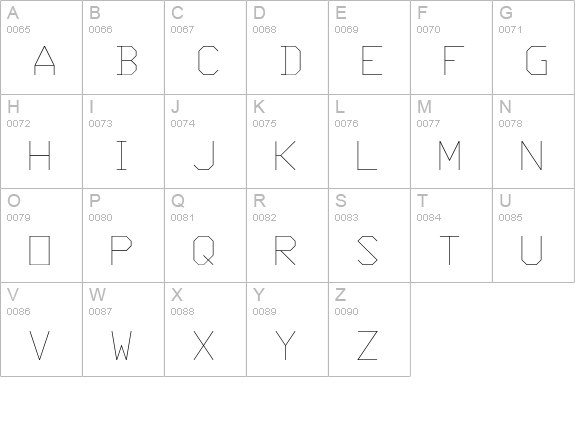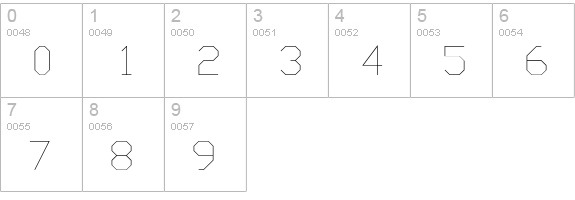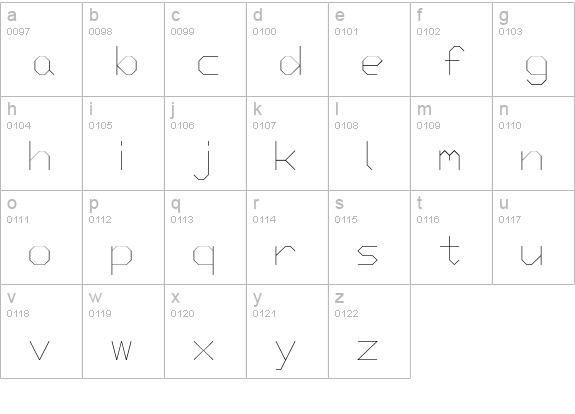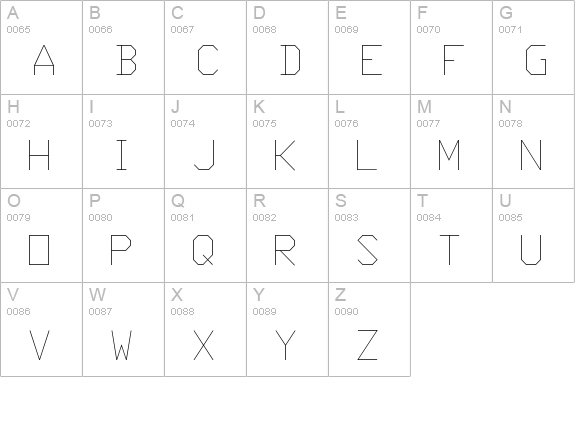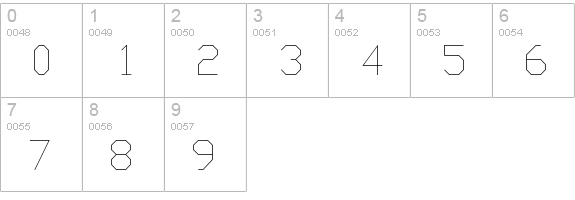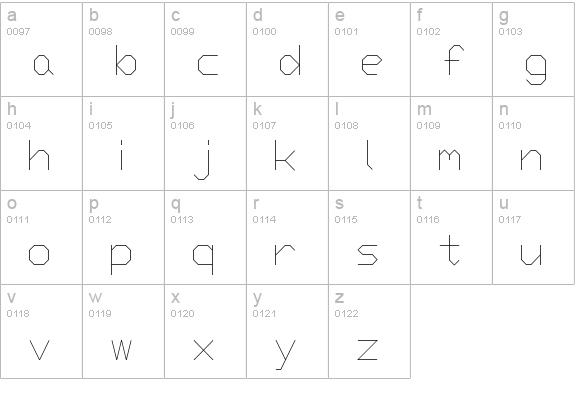
Monotxt Font Details
Monotxt is a sleek and modern font that exudes simplicity and elegance. With its clean lines and minimalist design, this typeface is perfect for a wide range of design projects, from branding to web design. The Monotxt font is versatile and easy to read, making it ideal for both digital and print applications. Best of all, Monotxt is available for free download at FontsMarket.com. This means you can easily access this stylish font without any cost, allowing you to enhance your projects with a touch of sophistication and style. Don't miss out on the opportunity to add Monotxt to your font collection and elevate your designs with its timeless appeal. Download Monotxt today and unlock a world of creative possibilities!